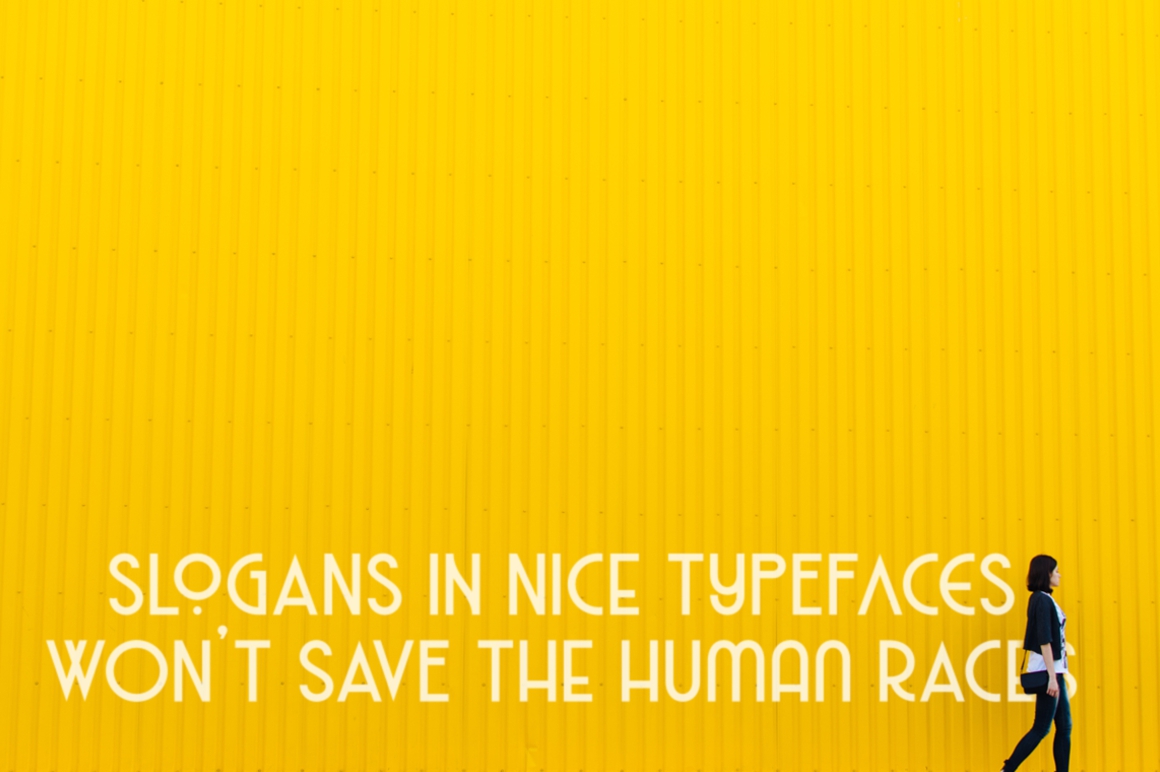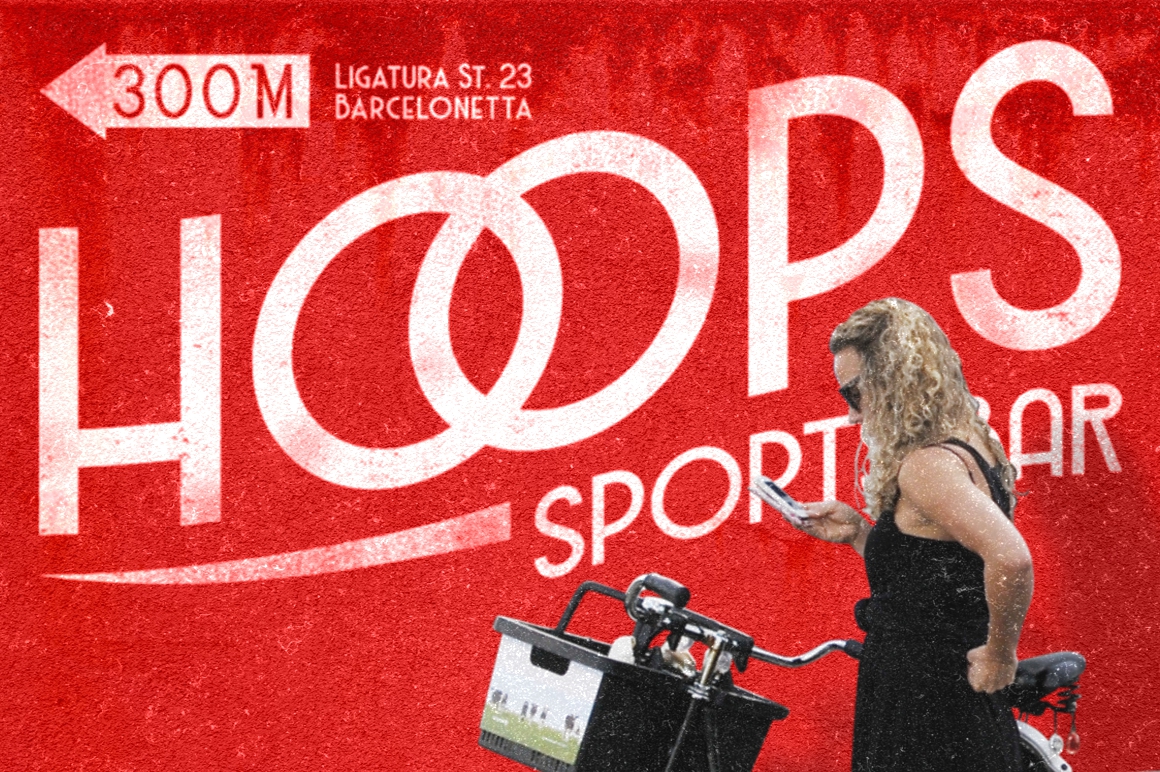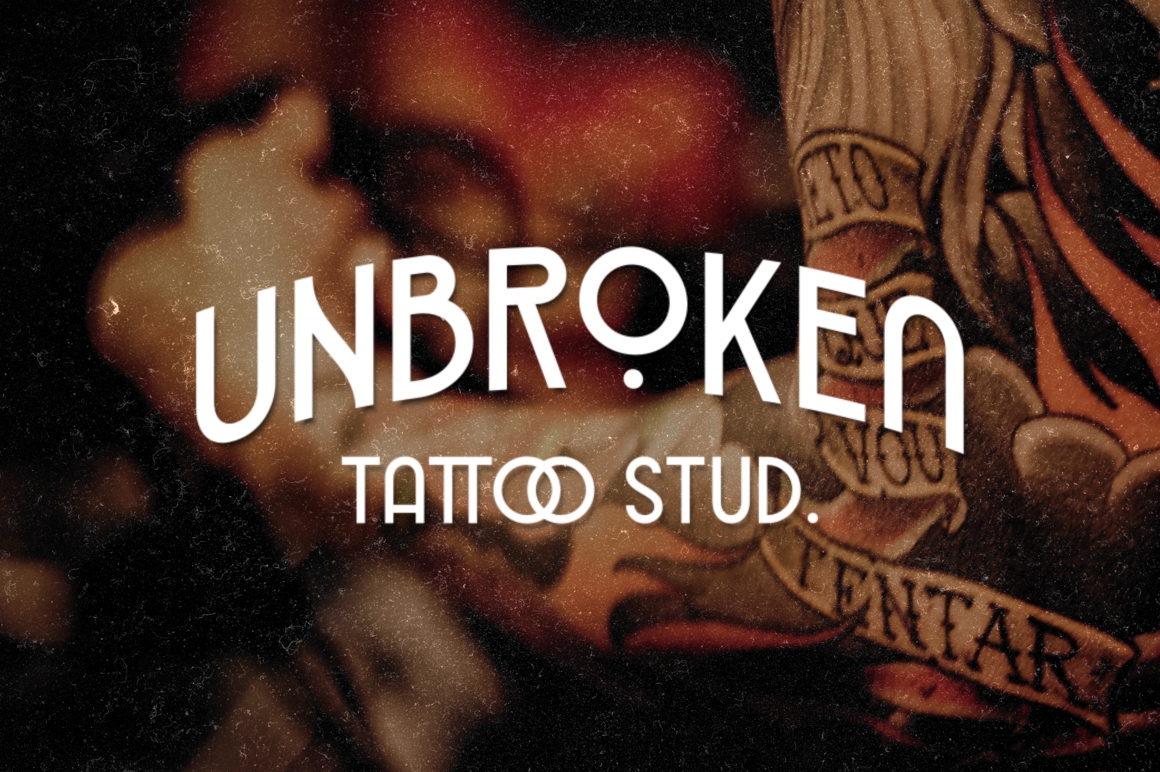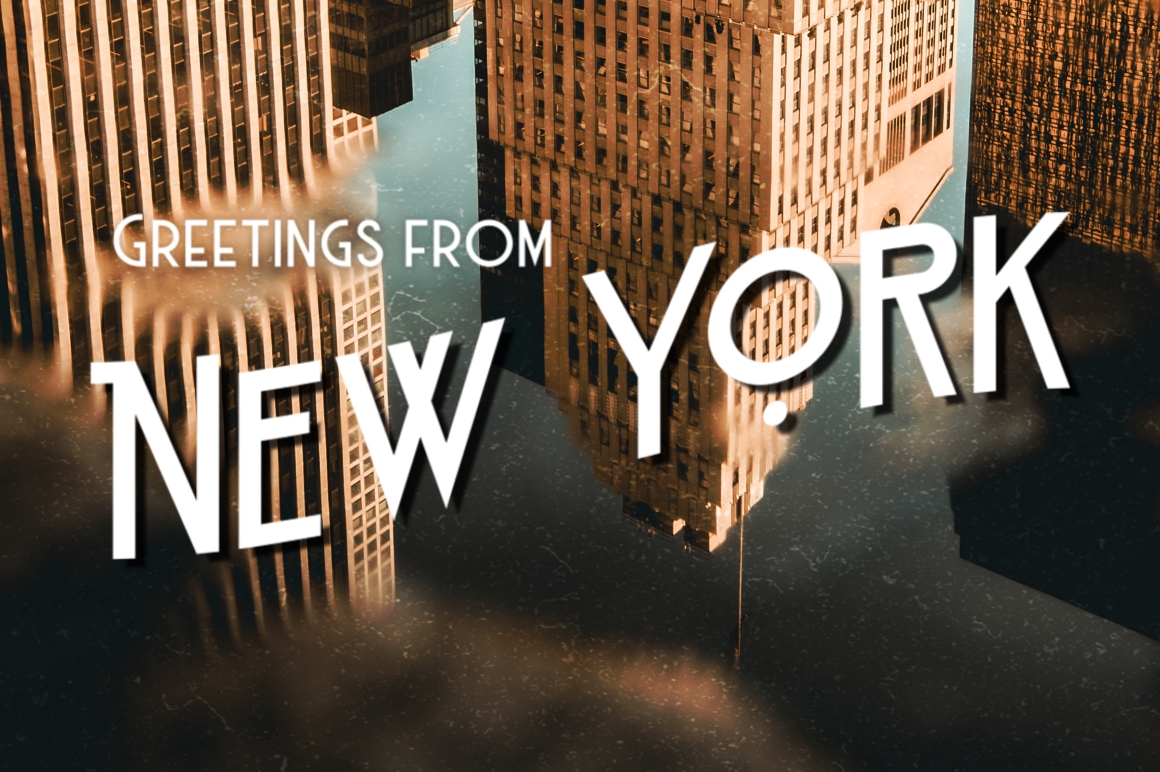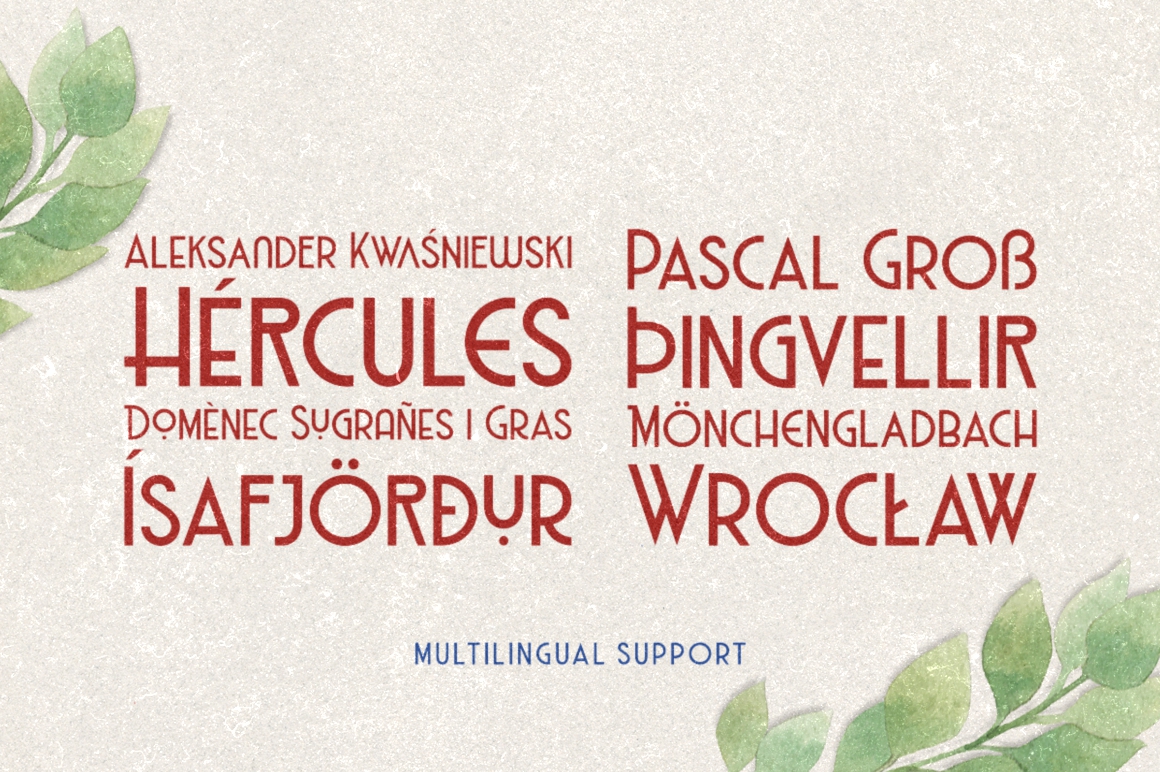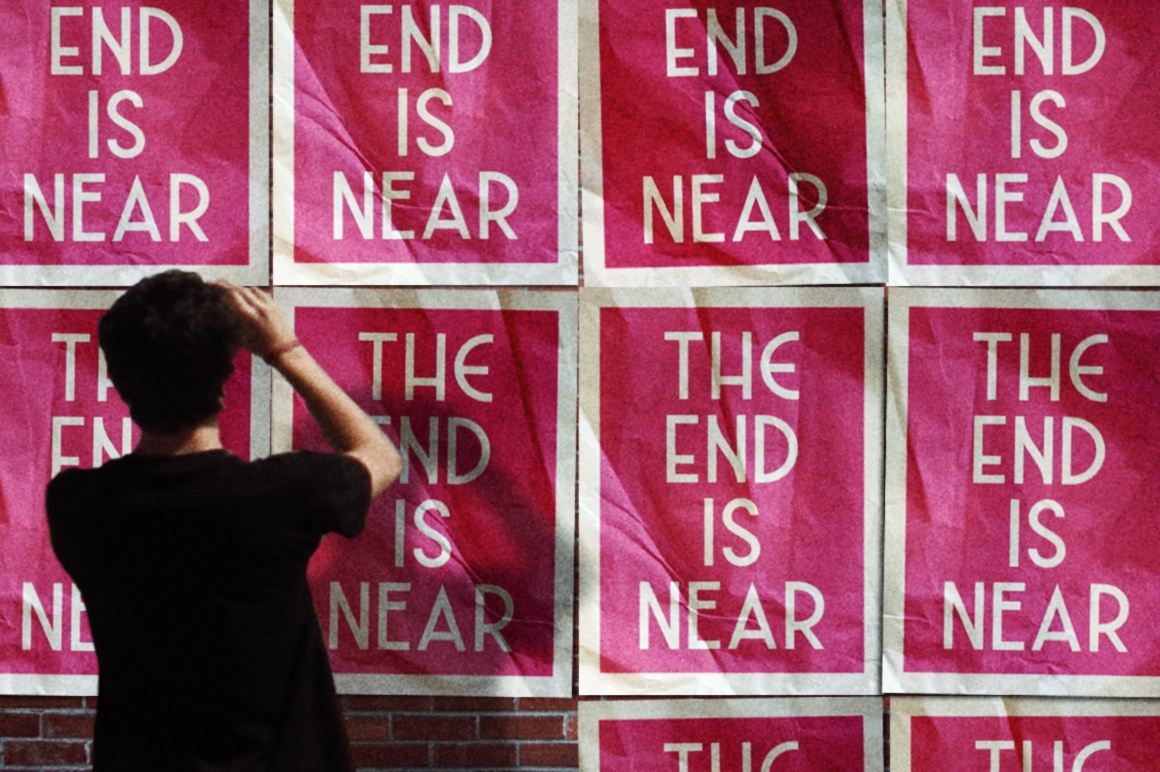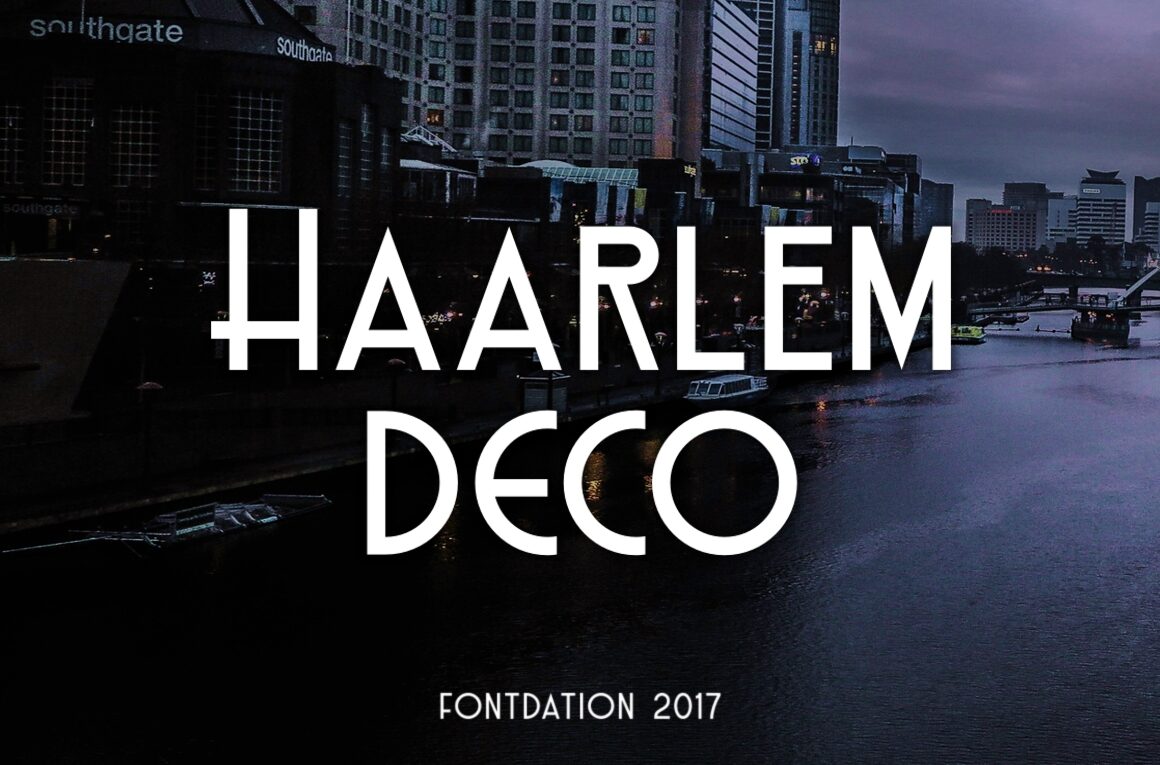
Introducing Haarlem Deco: A Timeless Art-Deco Typeface
Are you a designer or crafter looking for a font that exudes sophistication and elegance? Look no further than Haarlem Deco, an all-caps semi-condensed sans-serif typeface with an art-deco touch. This stunning font is a masterful blend of old Euro-American signage and advertising letters with modern clean sans serif elements, carefully crafted to bring you a genuine feel of the era.
The Inspiration Behind Haarlem Deco
Haarlem Deco draws inspiration from the opulent art-deco style that emerged in the 1920s and 1930s. Characterized by its geometric shapes, metallic materials, and ornate decorations, art-deco was a popular aesthetic in architecture, fashion, and visual design. The font’s creator, [designer name], sought to capture the essence of this iconic style and infuse it into a modern typeface.
Design Features of Haarlem Deco
Haarlem Deco boasts a range of design features that make it a standout typeface. Some of its key characteristics include:
- All-caps design: Haarlem Deco is an all-caps font, making it perfect for headlines, titles, and signage.
- Semi-condensed lettering: The font’s semi-condensed lettering allows for efficient use of space while maintaining excellent readability.
- Sans-serif style: Haarlem Deco’s sans-serif design ensures a clean and modern look that’s perfect for a wide range of applications.
- Art-deco flair: The font’s art-deco elements, such as geometric shapes and ornate details, add a touch of sophistication and glamour.
What Makes Haarlem Deco Unique?
So, what sets Haarlem Deco apart from other typefaces? Here are a few factors that make it a unique addition to any designer’s toolkit:
- Mouse-crafted with love: Haarlem Deco was carefully crafted by hand, using a mouse, to ensure a genuine, human touch.
- Blend of old and new: The font’s blend of traditional Euro-American signage and modern clean sans serif elements creates a distinctive look that’s both nostalgic and contemporary.
- Highly legible: Despite its condensed design, Haarlem Deco remains highly legible, making it perfect for use in a variety of contexts, from signage to digital displays.
Using Haarlem Deco in Your Designs
Haarlem Deco is an incredibly versatile typeface that can be used in a wide range of design applications. Here are a few ideas to get you started:
- Signage and advertising: Haarlem Deco’s art-deco flair and bold design make it perfect for use in signage and advertising materials.
- Branding and logos: The font’s sophisticated, elegant look makes it an excellent choice for branding and logo design.
- Packaging and labels: Haarlem Deco’s semi-condensed design and high legibility make it well-suited for use in packaging and labeling.
- Digital displays: The font’s clean, modern look ensures it will work beautifully in digital displays, from website headers to social media graphics.
Haarlem Deco is a truly unique typeface that brings a touch of art-deco elegance to any design. With its blend of traditional and modern elements, highly legible design, and versatile applications, it’s an excellent addition to any designer’s toolkit. Whether you’re a seasoned pro or just starting out, Haarlem Deco is sure to inspire your next creative project.